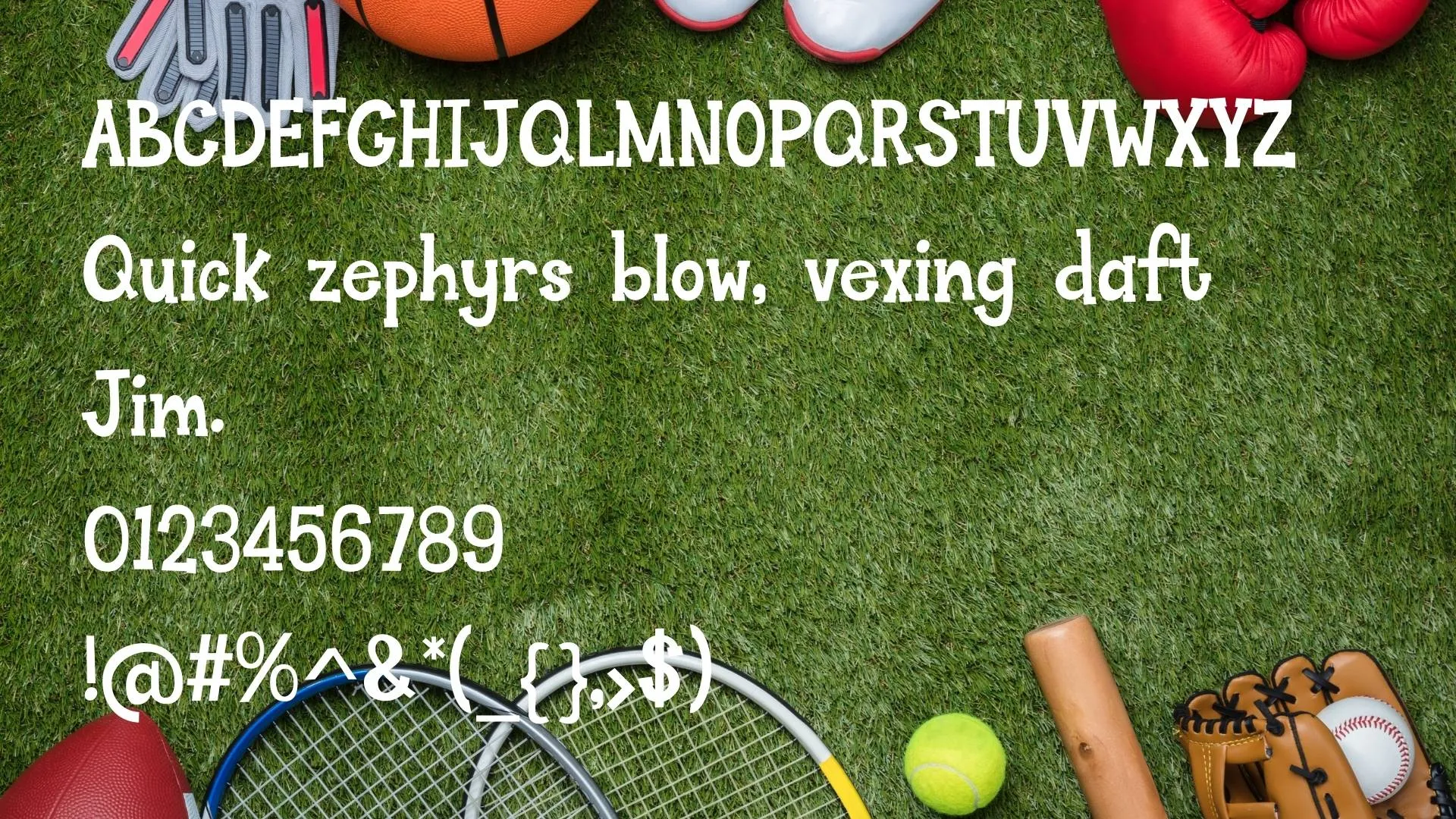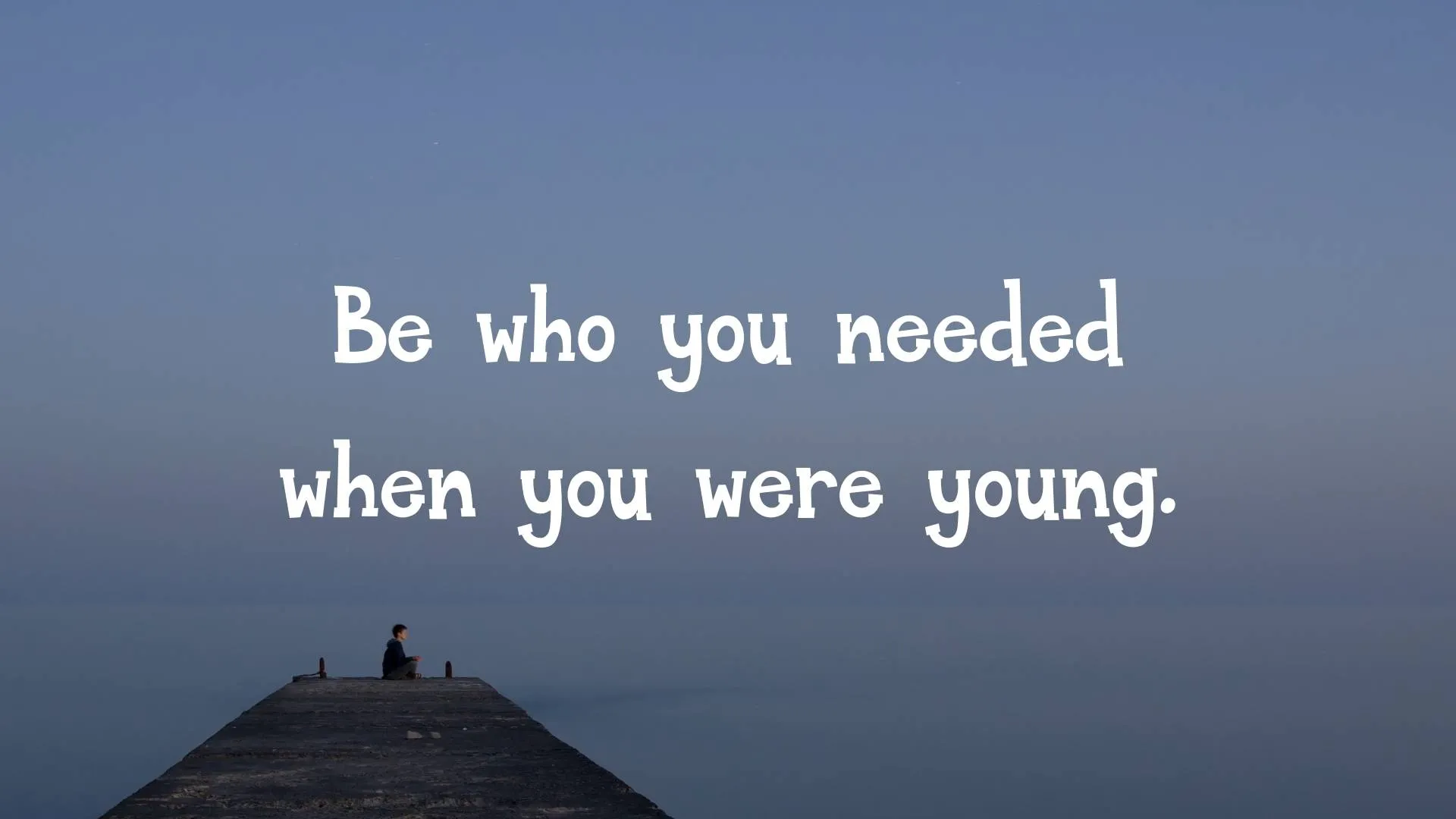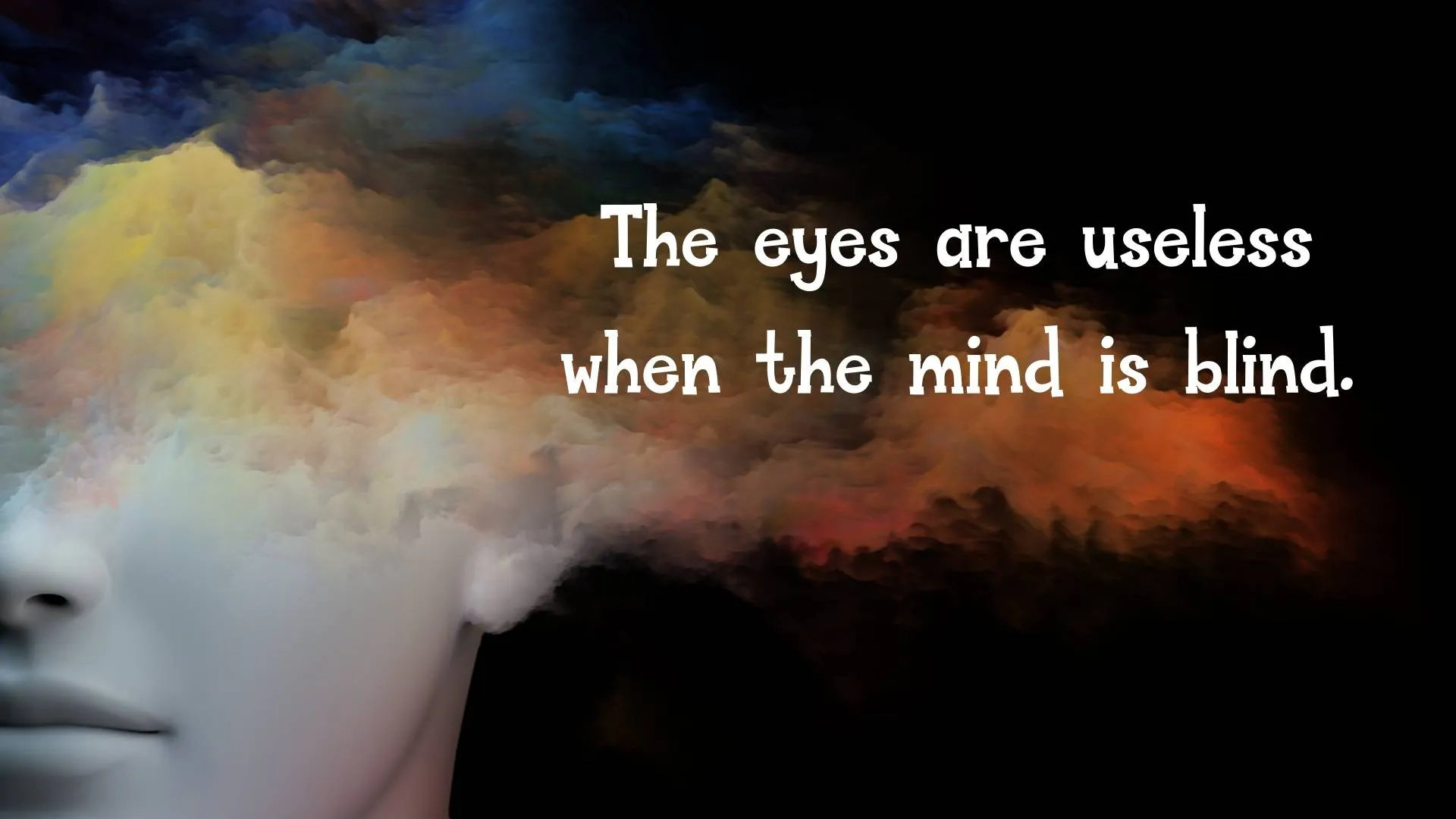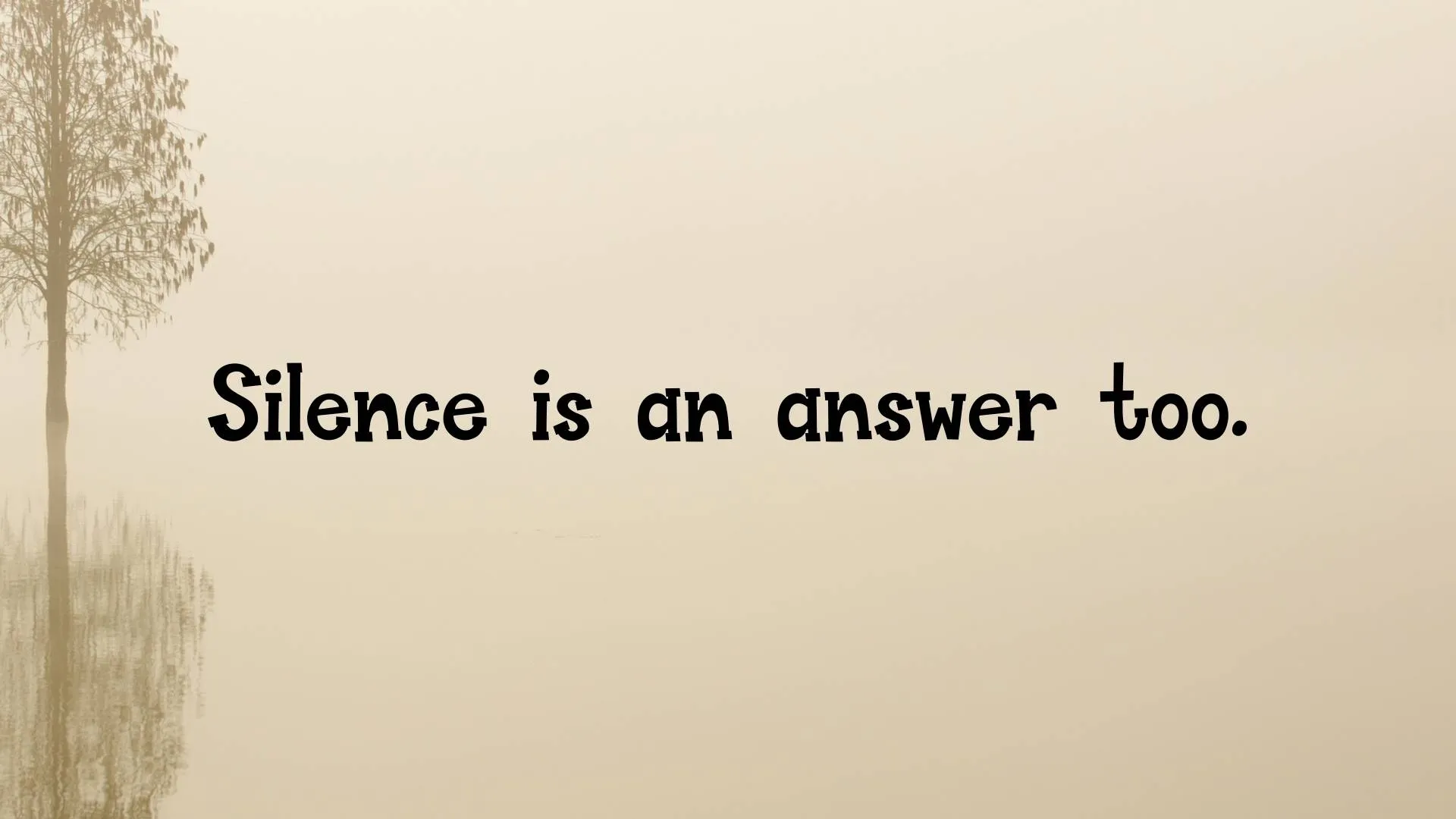
Funny Sports Regular Slabfont
Funny Sports is a Cool display font, carefully handcrafted to become a true favorite. Its casual charm makes it appear wonderfully down-to-earth, readable and, ultimately, incredibly versatile. This font will look outstanding in any context, whether it’s being used on busy backgrounds or as a standalone headline!
• Uppercase & Lowercase letters
• Numbering and Punctuation